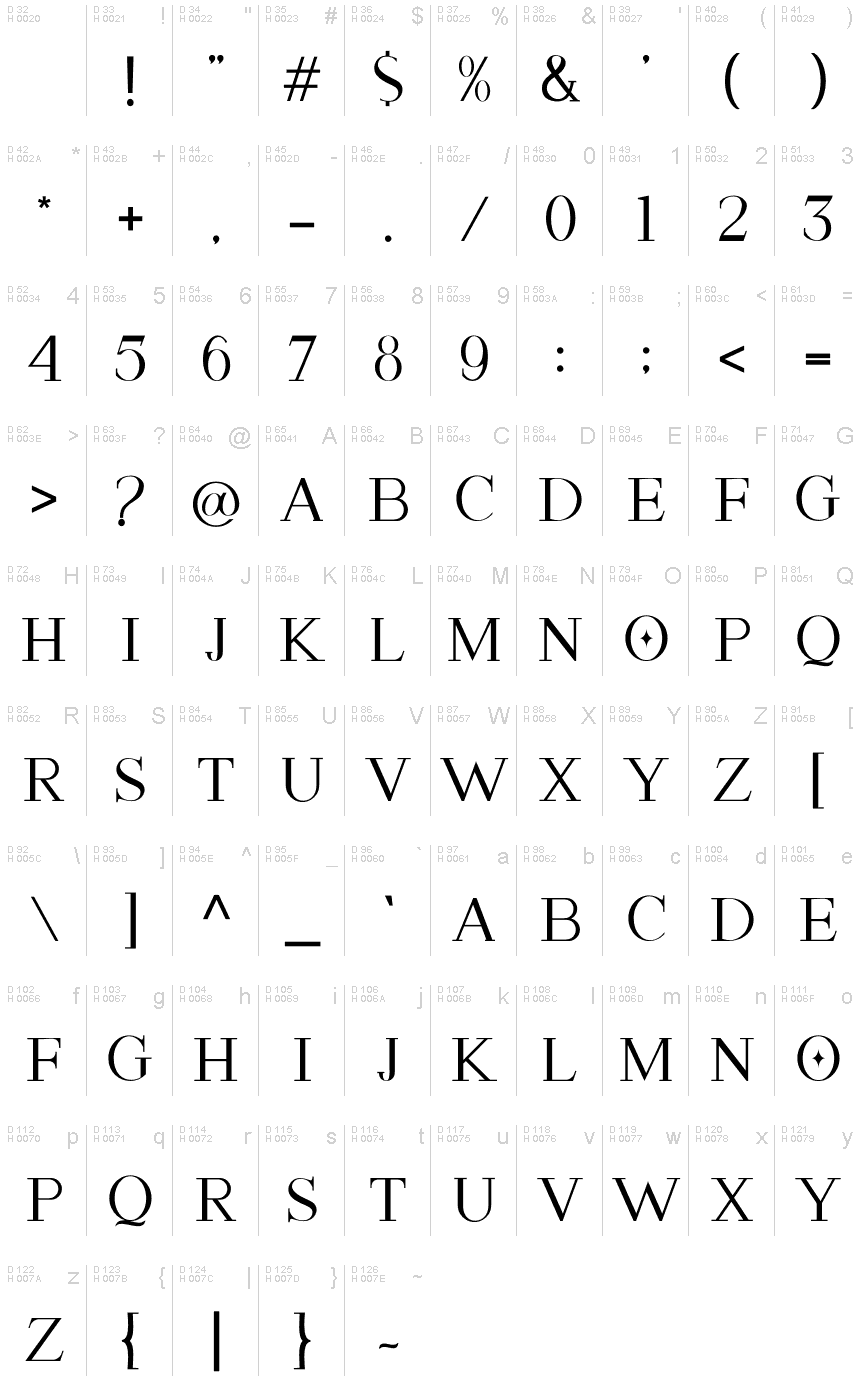
ASTON CALVIN
Aston Calvin, designed by MaknaStudio, stands as a testament to the timeless elegance of serif fonts. This semi-light typeface exudes sophistication with its clean lines and refined curves, presenting a harmonious balance between classic style and contemporary finesse.
The aesthetic appeal of Aston Calvin is in its understated beauty; it doesn't shout for attention, yet its presence is undeniable. Its serifs are thoughtfully crafted to add just the right touch of detail without overwhelming the senses, making it an ideal choice for designers seeking a font that is both readable and stylish.
This font's versatility extends to a wide array of creative projects. Whether gracing the pages of a novel, highlighting important information in editorial content, or adding a chic touch to branding materials, Aston Calvin adapts seamlessly. Its semi-light weight provides an airy quality that works exceptionally well in high-resolution print mediums as well as digital displays.
In essence, Aston Calvin is more than just letters on a page; it's an artistic statement that enhances the visual narrative wherever it's used.
Aston Calvin also came with alternate characters and ligature to
make everything more Fancy.